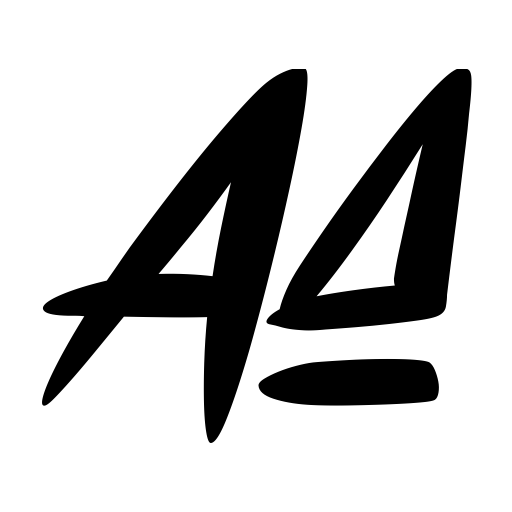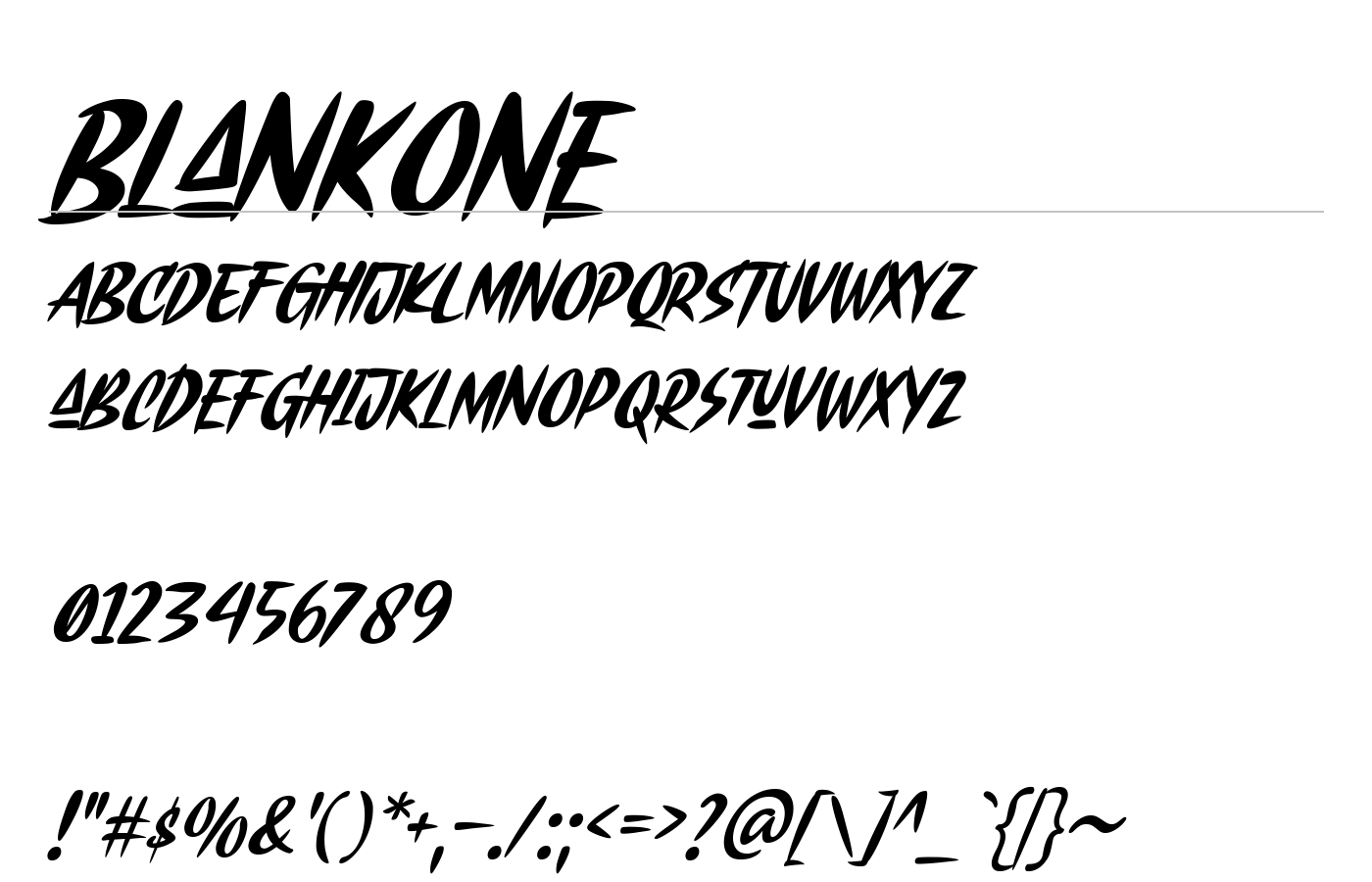
Blankone is a bold, energetic script font that combines dynamic brush strokes with a modern, slightly edgy style. Its uppercase letters feature sharp angles and varying stroke widths, giving it a lively, confident personality perfect for eye-catching headlines, branding, and creative projects that want to convey a sense of movement and expression. This font works well in designs that aim to be bold, contemporary, and stylish, especially where a touch of hand-crafted flair is desired.
Blankone Font
About Blankone Font